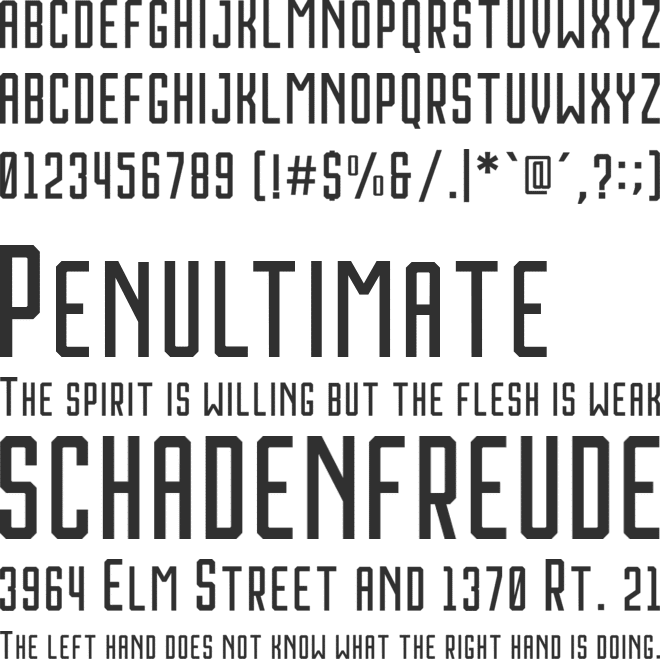
Fonts Houston Font – Free Font Of The Day #197 by Yayang Apryana June 25, 2015 Houston Font Houston is a typeface inspired by space with a touch of science fiction. Hope this article helps you determine the font for your design, go to the button below to download the font directly. Download